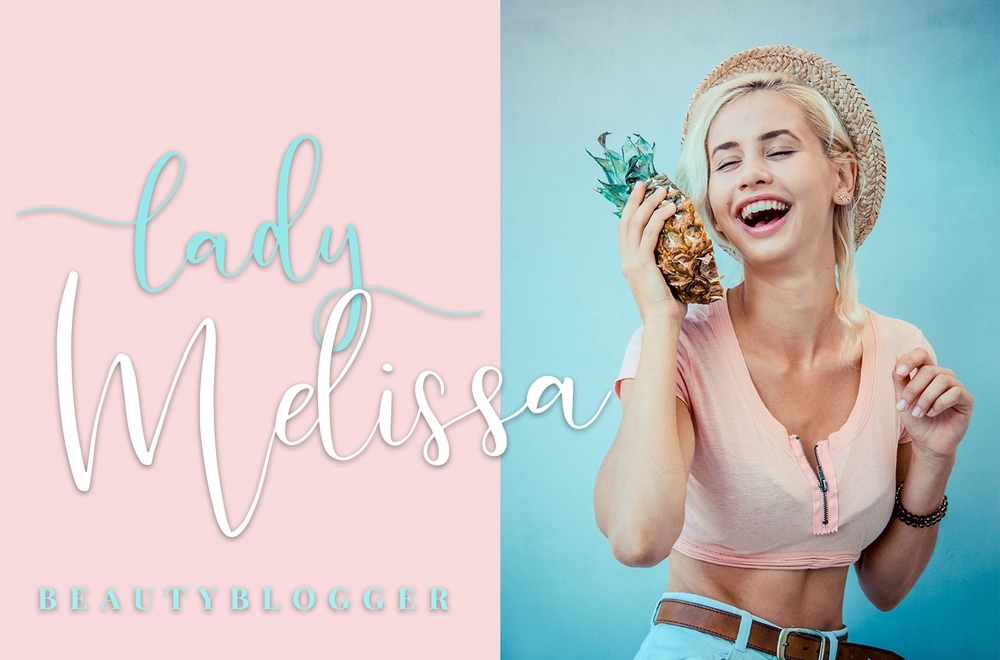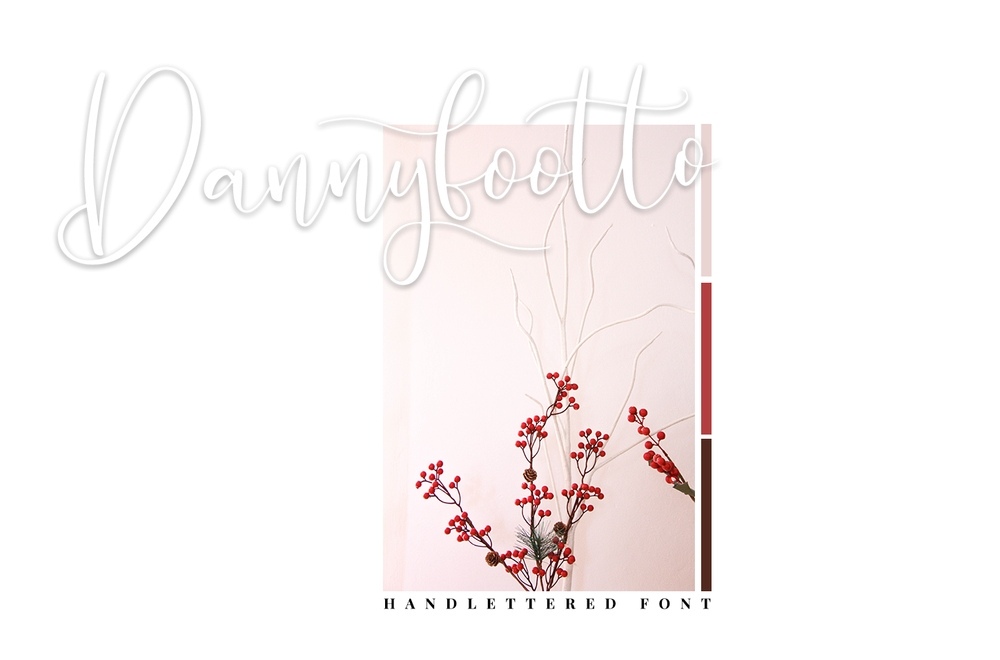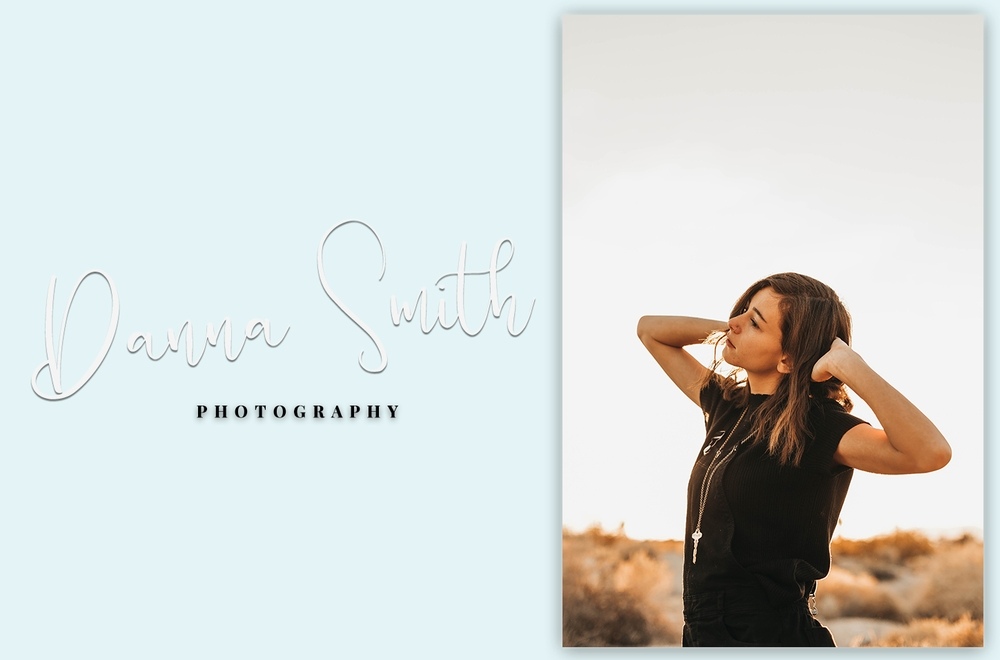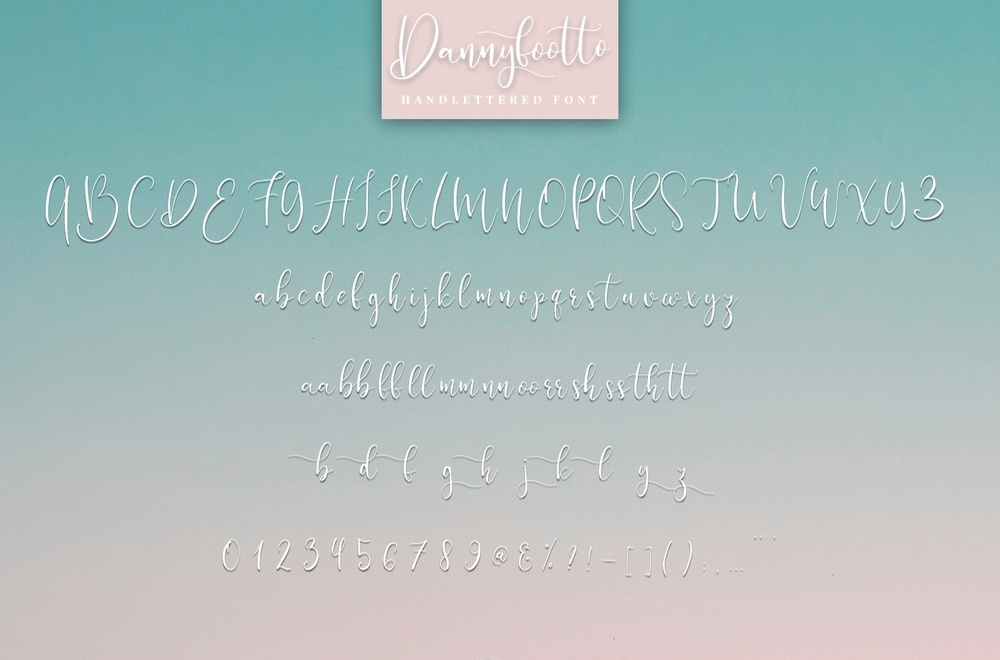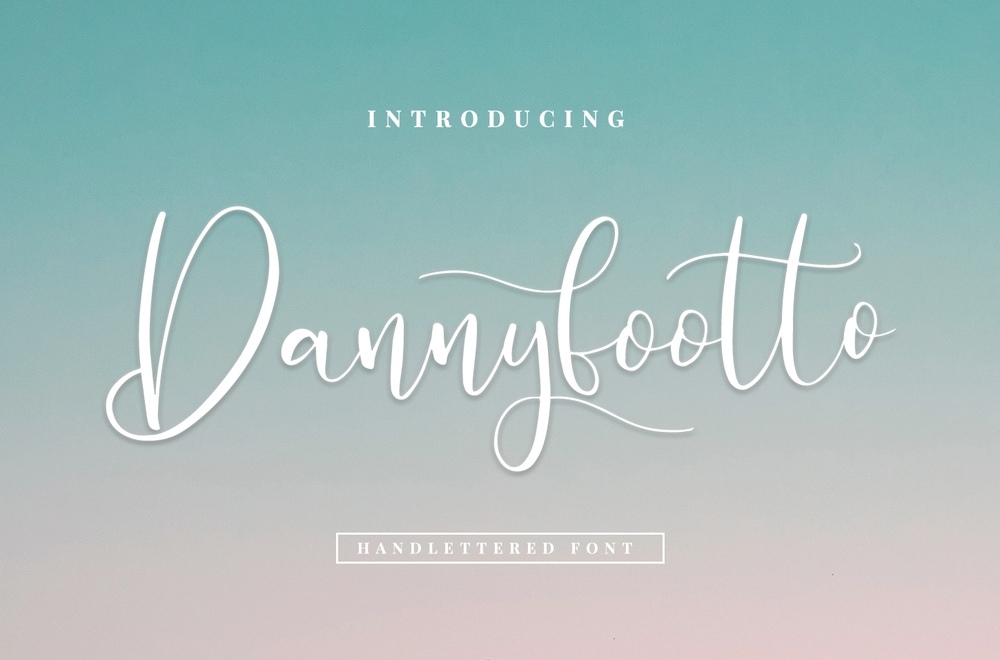
Dannyfootto Font
Dannyfootto Font excels in quirky advertising campaigns, playful brand identities, eccentric fashion labels, unconventional restaurant signage, creative agency portfolios, alternative music venue branding, artistic workshop materials, indie game typography, experimental design projects, and offbeat cultural event promotions. This distinctive typeface brings whimsical creativity and unconventional charm to any personality-driven design project.
Dannyfootto Font is exciting because it captures the spirit of creative rebellion and artistic individuality, featuring uniquely crafted letterforms that break conventional design rules with deliberate playfulness and infectious personality. Its eccentric character instantly conveys creative freedom, artistic authenticity, and the bold confidence to stand out from the crowd through distinctive visual expression.
The Dannyfootto Font family includes Regular weight with quirky alternates, playful variations, unconventional ligatures, and personality-driven ornamental elements that enhance the eccentric aesthetic, providing creative designers with distinctive tools for creating typography that celebrates individuality and refuses to conform to traditional design expectations.
Alternative brand designers love Dannyfootto Font for its exceptional ability to convey authentic personality and creative uniqueness through deliberately unconventional letterforms. The font's quirky character and individualistic details create immediate associations with artistic independence, creative courage, and the authentic self-expression that resonates with audiences seeking genuine alternatives to mainstream design approaches.
The design philosophy behind Dannyfootto Font celebrates creative authenticity over commercial conformity, artistic courage over safe choices, making it particularly effective for independent artists, alternative brands, and creative projects that value genuine self-expression over conventional appeal. Creative teams working on authentic artistic projects find this font essential for expressing true personality.
Whether used for independent art exhibitions, alternative music festivals, or unconventional brand campaigns, Dannyfootto Font delivers the perfect combination of creative authenticity and artistic courage. Its quirky appeal and individualistic spirit make it an indispensable choice for projects that celebrate creative nonconformity, artistic independence, and the bold courage to express genuine personality through distinctive design.